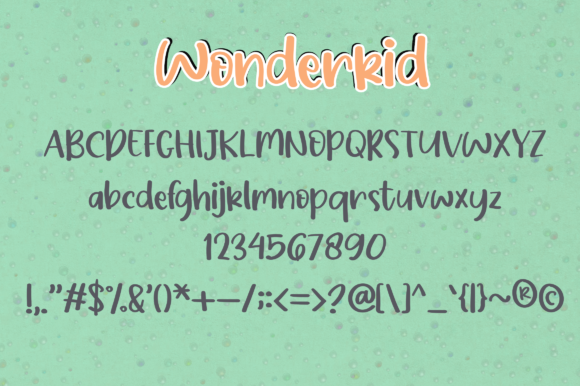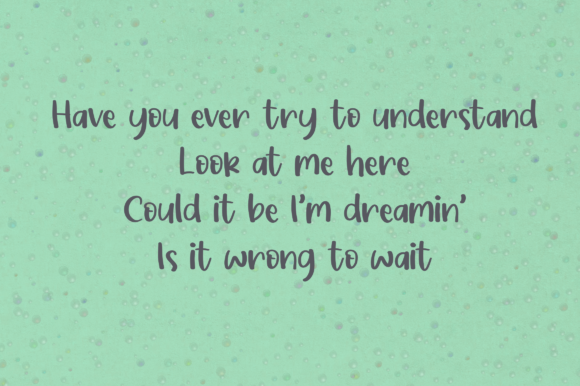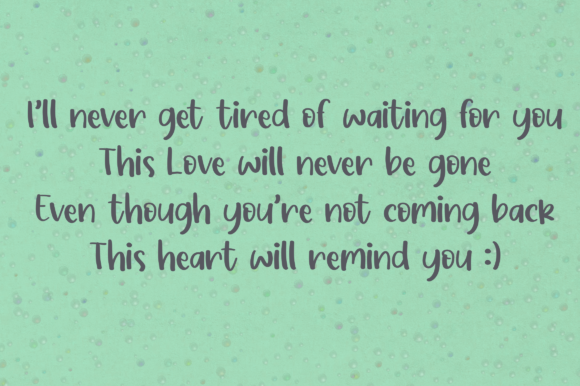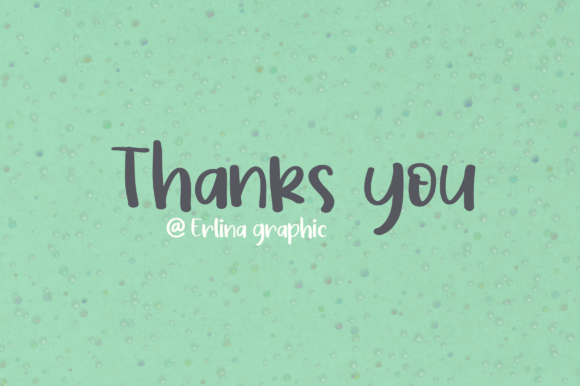
About Wonderkid Font
Wonderkid is a playful, simple and quirky handwritten font perfect for any design you wish to create. Add it to your most creative ideas, and notice how it makes them come alive!